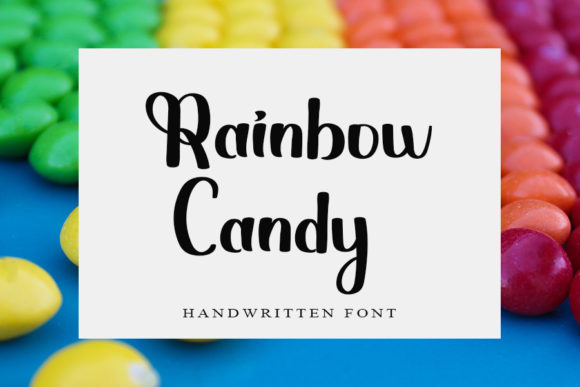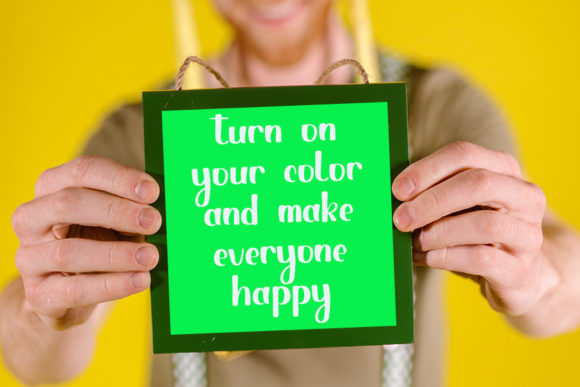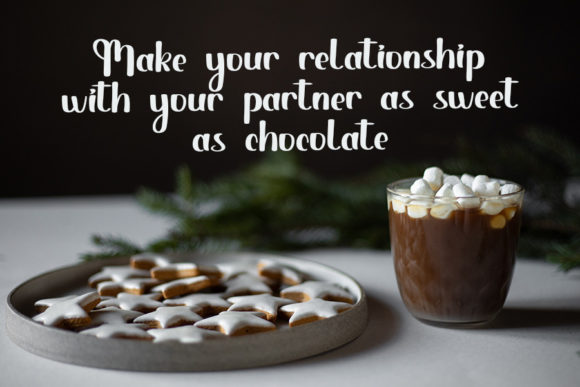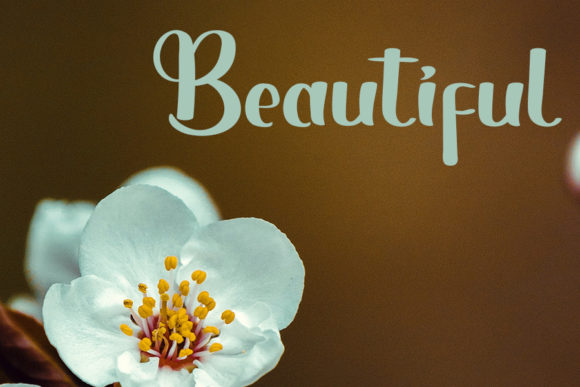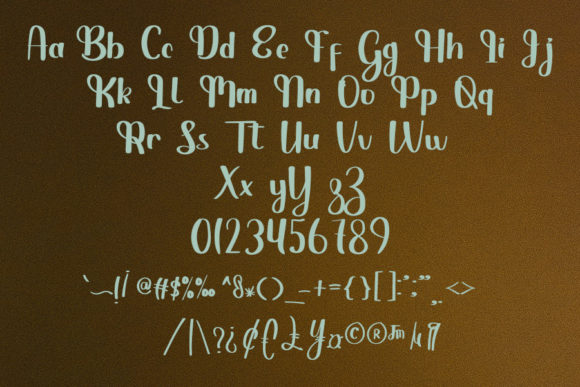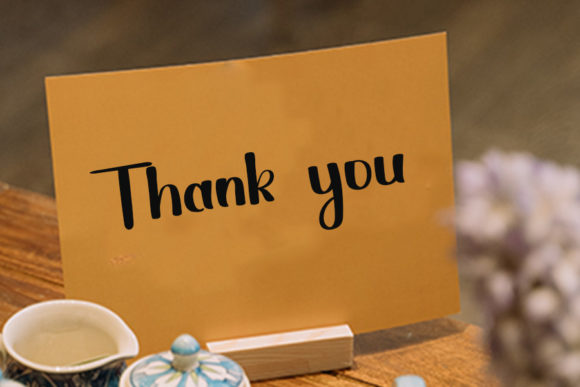
Rainbow Candy Font
About Rainbow Candy Font
Rainbow Candy is a sweet and delicate handwritten font. Dainty and joyful, this font will be ideal for writing wedding invitations, cards or any other design that may need a romantic, personalized touch!